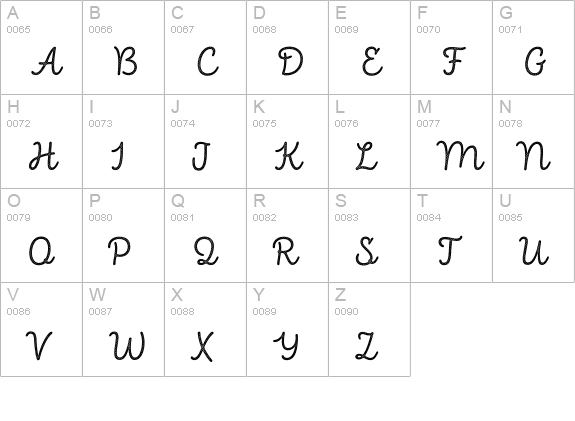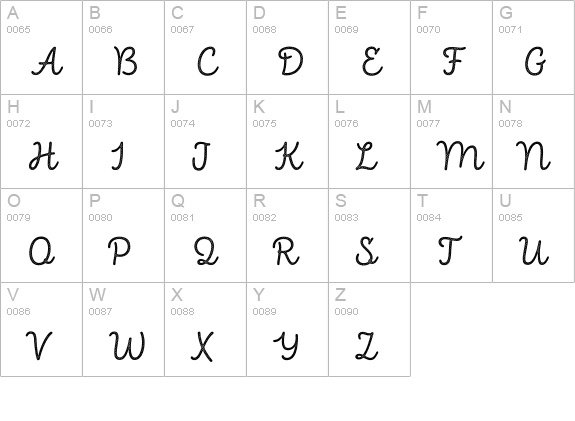
Intro Script R H1 Base Font Details
The Intro Script R H1 Base font is an elegant and stylish typeface that exudes sophistication and charm. Its intricate details and graceful curves make it perfect for creating eye-catching designs that demand attention. This versatile font is suitable for a wide range of projects, from branding to packaging to advertising. What's even better is that Intro Script R H1 Base is available for free download at FontsMarket.com. This means you can easily access this high-quality font without any cost, making it a valuable addition to your design toolkit. With its timeless appeal and modern flair, Intro Script R H1 Base is sure to elevate your projects and leave a lasting impression on your audience. Download it today and start creating stunning designs that stand out from the crowd.